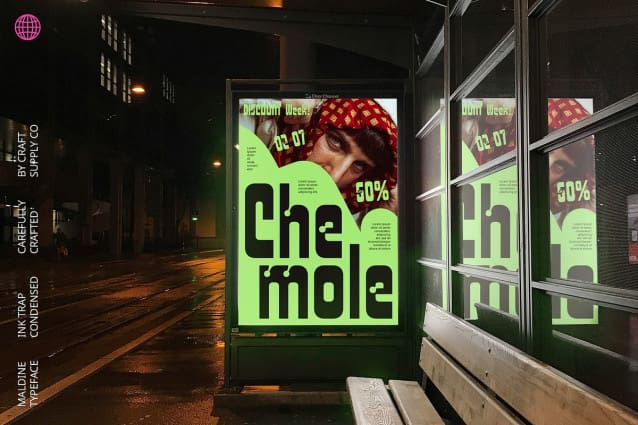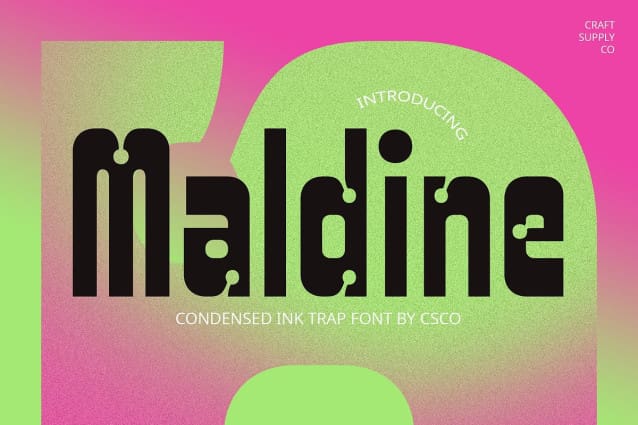
Maldine Font
Maldine Font – Inktrap Font is a sans serif typeface featuring inktrap details and a condensed form. Ideal for designs where clarity meets efficiency, it enhances readability and aesthetic appeal in various applications such as headlines, posters, and branding materials.
With its inktrap details and condensed form, Maldine – Inktrap Font strikes a perfect balance between form and function. It ensures text remains clear and legible while adding a subtle touch of craftsmanship that enhances its visual appeal.
Maldine Font – Inktrap Font enhances headlines and posters with its crisp and refined appearance. Its condensed design allows for efficient use of space, making it perfect for grabbing attention and delivering messages with clarity and impact.
Versatile and functional, this inktrap sans serif font adapts seamlessly to various design applications. Whether used in digital or print media, this font provides a modern and polished look that elevates the overall quality of your projects.